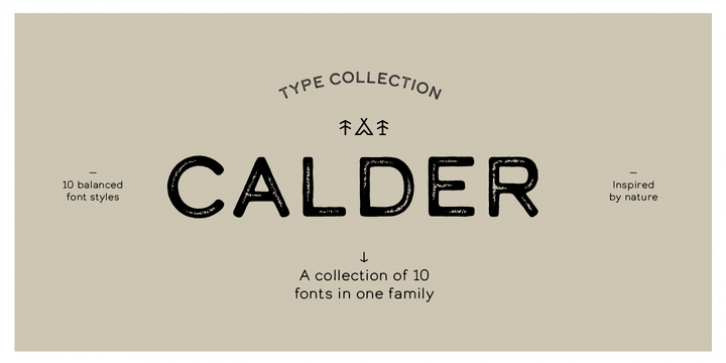
Publisher: The Northern Block Ltd
Calder is a display typeface collection. It incorporates 10 styles and offers two distinctive voices: a playful semi-connected script and a selection of subtle yet authentic sans serifs. Designed to complement each other, they offer a unique and engaging visual tool.
Calder Script, Calder LC and Calder LC Grit, are available in both Upper and Lower case, whilst the rest of the collection is available uniquely in Upper case.
Inspired by the pursuit of the outdoors, Calder began as a personal experience and endeavor to express and share the spirit of adventure connected with this renewed, growing movement.